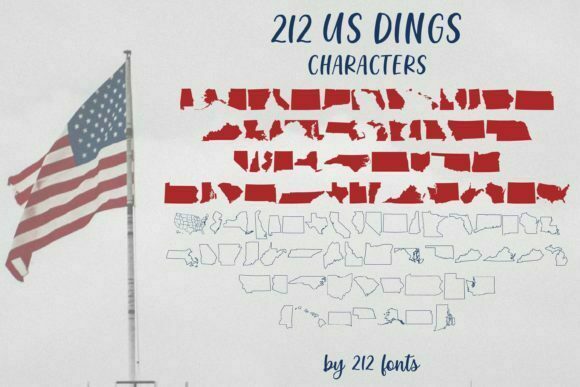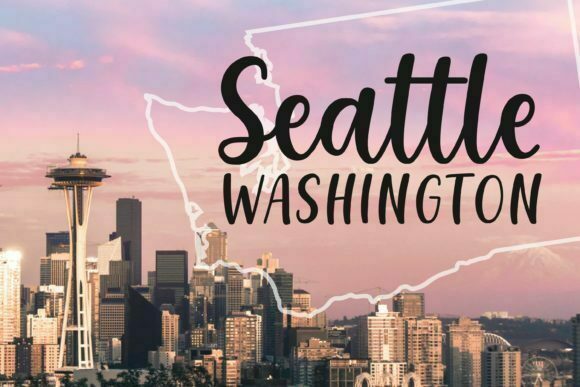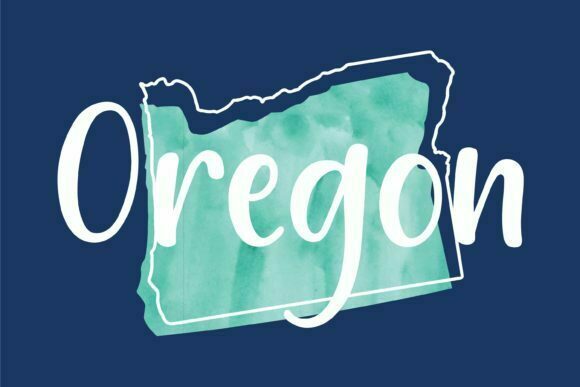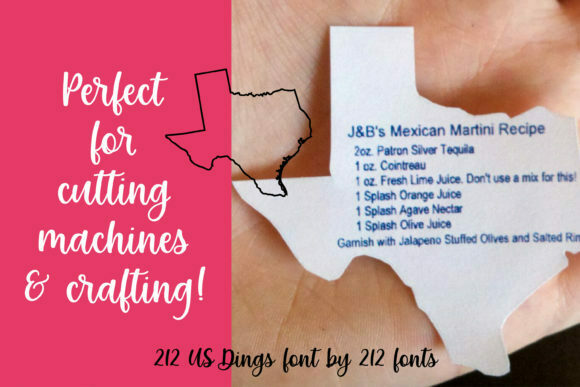
About 212 US Dings Font
212 US Dings sounds like an amazing dingbat font that celebrates the diversity and uniqueness of the United States. With its collection of all 50 states in both solid and outline forms, this font offers a wide range of creative possibilities. Here are some ideas on how you can utilize 212 US Dings in your design projects:
1. State-themed Logos: Create distinctive logos for businesses or organizations with a connection to specific states using elements from 212 US Dings. Incorporate the solid or outline forms of the states to emphasize their geographical location. Combine them with other design elements to represent the industry or theme associated with the business.
2. Graphic Designs: Add a touch of state pride to your graphic designs using 212 US Dings. Whether you’re designing posters, banners, or social media graphics, the font’s elements can be utilized to create visually appealing compositions. Use the solid or outline forms of the states as background elements or incorporate them into typography designs. Experiment with different combinations of elements to convey specific messages or evoke a sense of regional identity.
3. Crafting and Cutting Machines: Take your crafting projects to the next level with 212 US Dings. Use the font’s elements to create stencils for painting or cutting machines like Cricut or Silhouette. Personalize items such as T-shirts, mugs, or home decor with state-themed designs. The solid and outline forms of the states provide flexibility in crafting applications.
4. Educational Materials: If you’re creating educational materials with a focus on U.S. geography, 212 US Dings can be a valuable resource. Use the font’s elements to highlight specific states on maps or create interactive activities for students. Incorporate the state-themed glyphs to make learning about the United States more engaging and enjoyable.
5. Travel and Tourism Promotion: If you’re involved in travel and tourism promotion, 212 US Dings can be a valuable asset. Use the font’s elements to create visually appealing brochures, flyers, or postcards that highlight different states and their attractions. Incorporate the state glyphs to represent the destinations or landmarks associated with each state, capturing the essence of their unique identities.
6. Scrapbooking and Memory Keeping: Document your travels or create state-themed scrapbook layouts using 212 US Dings. Use the font’s elements to highlight the states you’ve visited or create themed pages related to specific states. The solid and outline forms of the states will add visual interest and help tell the story of your journey.
7. Event Planning: If you’re organizing events with a state or regional theme, 212 US Dings can be a valuable tool. Use the font’s elements to create invitations, banners, or signage that represent the states involved. Incorporate the state glyphs to reinforce the event’s theme and create a cohesive visual identity.
212 US Dings provides a wide array of state-themed elements that can enhance your design projects, whether they’re logos, graphics, crafts, educational materials, or scrapbooking. With its solid and outline forms of all 50 states, this font offers versatility and creativity for your U.S.-inspired creations. Let the spirit of the United States shine through in your designs with the help of 212 US Dings!